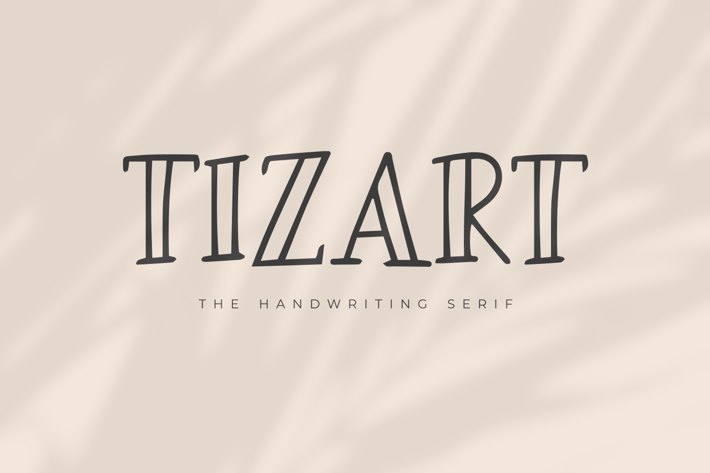
Tizart - The Handwriting Serif Font
Tizart - The Handwriting Serif Font, every single letter has been carefully crafted to make your text looks beautiful. it's perfect for logos, name cards, magazine layouts, invitations, headers, or even large-scale artwork.